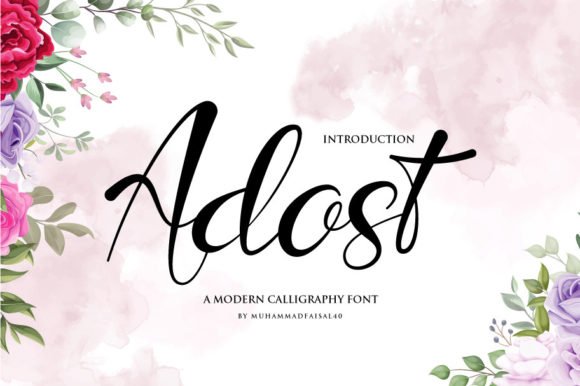
Discover the Delicate Charm of Adost Font
As you sit in front of your computer, staring at a blank canvas, you’re on the hunt for the perfect font to bring your design to life. You want something that exudes elegance, something that makes your audience feel special. And then, it hits you – the perfect script font that will elevate your work to new heights. For designers like you, this moment is a game-changer.
Enter the Adost Font, a lovely and delicate script font that’s specifically crafted for those who need a beautiful and refreshing look to their designs. With its refined lines and sophisticated feel, Adost Font is the perfect addition to any project that demands a touch of class. Whether you’re working on a wedding invitation, a luxury brand brochure, or a heartfelt letter, Adost Font is the ideal choice to make your designs truly unforgettable.
Adost Font Key Features
- Unique Characteristics: Adost Font features a unique blend of modern and vintage elements, making it perfect for creating eye-catching designs.
- Font Style: Adost Font has a script-like style with a mix of cursive and handwritten elements, giving it a personal touch.
Adost Font Review
Overall, I think Adost Font has some great qualities, but it also has some areas where it falls short.
Adost Font has a unique, modern aesthetic that sets it apart from more traditional fonts. I love how the rounded edges and subtle curves give it a friendly, approachable feel.
The font’s versatility is also a major plus – it works well for both body text and headings, making it a great choice for a wide range of projects.
- Some of the letterforms feel a bit inconsistent, with the ‘e’ and ‘a’ looking slightly cramped compared to the rest of the alphabet.
- The font’s x-height is a bit on the low side, which can make it harder to read in certain contexts.
- The font doesn’t come with a comprehensive character set, which can be a problem for languages that require a lot of special characters.
While Adost Font has some great qualities, its limitations hold it back from being a truly top-notch font. With some further development to address these issues, it could be a real contender in the world of typography.
Getting the Most Out of Adost Font
To get the most out of Adost Font, try using it for:
- Displaying headings and titles.
- Creating a modern and minimalist aesthetic.
- Designing for digital interfaces.
Adost Font is commonly used for:
- Branding and logos.
- Website design and development.
- Mobile app design and development.
Alternatives to Adost Font
Montserrat is a popular sans-serif font designed by Julieta Ulanovsky. It’s a great alternative to Adost Font for projects that require a clean and modern look. Montserrat is highly legible and works well in both digital and print media. Unlike Adost Font, Montserrat has a more geometric and urban feel, making it perfect for fashion, technology, and lifestyle brands.
Lato is a sans-serif font designed by Łukasz Dziedzic. It’s a great choice for designers who want a font that’s both elegant and readable. Lato is similar to Adost Font in terms of its clean and minimalist design, but it has a more rounded feel, making it perfect for projects that require a friendly and approachable tone.
Open Sans is a highly legible sans-serif font designed by Steve Matteson. It’s a great alternative to Adost Font for projects that require a clear and concise message. Open Sans is highly versatile and works well in a variety of contexts, from digital interfaces to print materials. Unlike Adost Font, Open Sans has a more neutral feel, making it perfect for projects that require a professional and corporate tone.